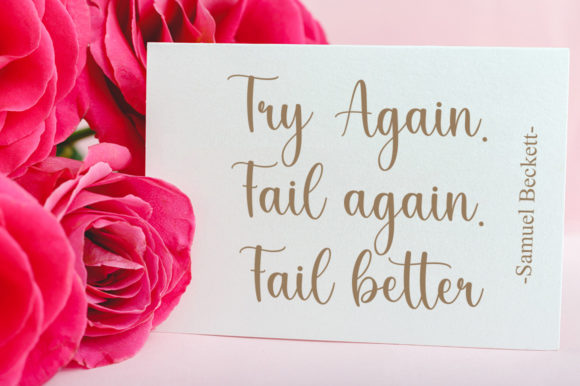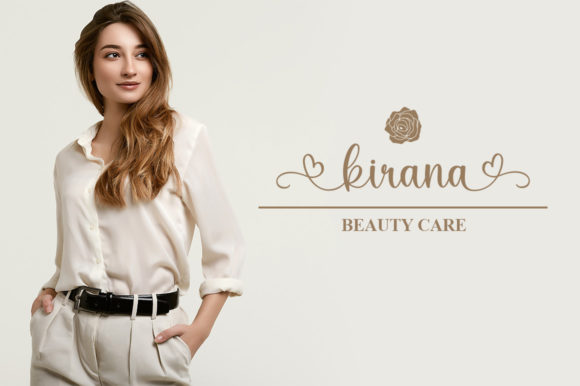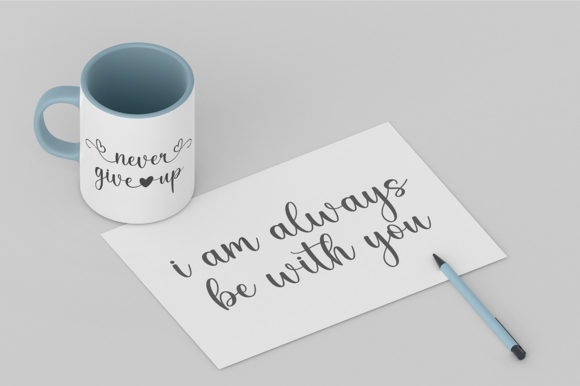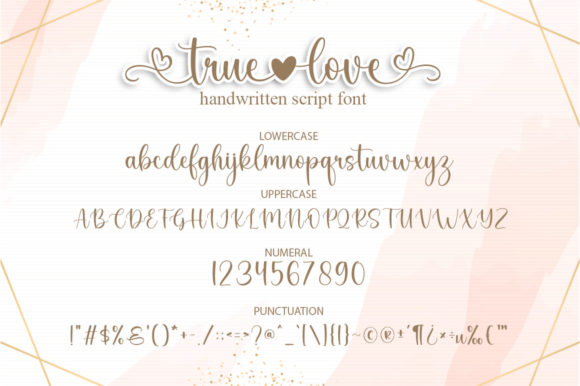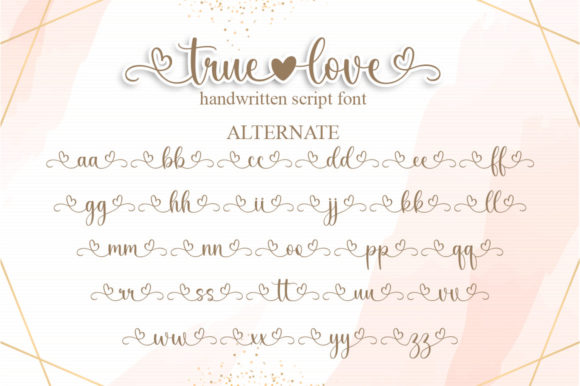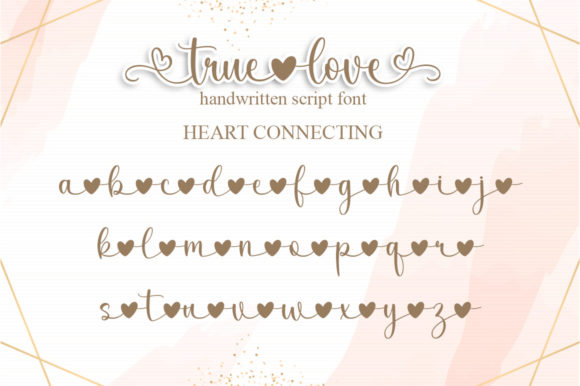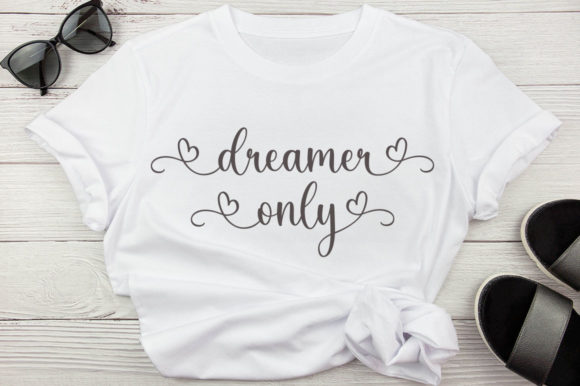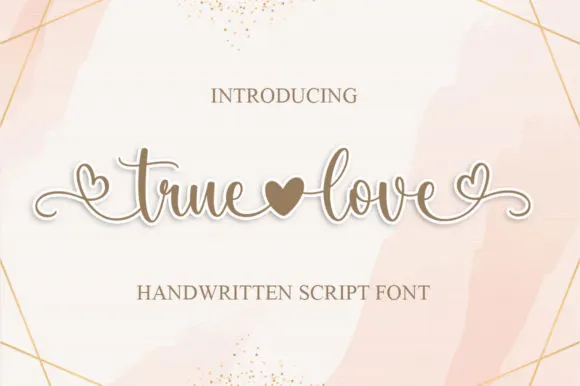
True Love Font
True Love Font : An Elegant Script Font for Versatile Design
True Love is a captivating script font that seamlessly blends charm with sophistication. Its flowing style and well-balanced characters make it an ideal choice for a wide range of design projects, from branding to packaging.
Key Features of True Love Font
• Elegant Flowing Style: The font’s graceful curves and smooth transitions create a luxurious look that catches the eye.
• Well-Balanced Characters: Each letter is carefully crafted to ensure readability and visual harmony across various applications.
• PUA Encoding: Designers can easily access all glyphs and swashes, thus enhancing creative freedom and design possibilities.
• Versatile Applications: Consequently, True Love is suitable for various design needs, from wedding invitations to branding materials.
Perfect for Warm and Inviting Designs
Due to its elegance, True Love is particularly well-suited for projects that require a warm, inviting atmosphere. Moreover, its charming style can evoke emotions and create a personal connection with the audience, making it perfect for designs that need to convey sincerity and affection.
Applications Beyond Invitations
While True Love excels in romantic and personal designs, its versatility extends to various professional applications:
• Branding projects for boutiques or luxury products
• Packaging design for premium goods
• Social media graphics and digital marketing materials
• Editorial layouts for magazines and books
• Product labeling for high-end items
Enhancing Design Freedom
True Love is the ultimate symbol of brand identity- with more than a dozen special glyph options, this typeface leaves you free rein to deploy and use its character set in diverse designs. On the other hand, since it is a font with PUA encoding, that means you can use all special characters and alternates to design creative typographic designs.
Creating Memorable Designs
Including True Love font in your projects will definitely bring some refinement and cozyness to your designs, therefore making them more attractive and memorable for the viewer. Working on a wedding invitation, boutique brand, luxury product or fine art – True Love is a guaranteed way to add sophistacation to your designs. True Love works beautifully as a stand alone typeface, but when paired with other similar script fonts is perfect for mixing and matching between the 3 different weights to add flair in your next project or use True Love Light, Regular or Bold on its own to create layouts, greeting cards, invites, weddings and more. So there you have it: True Love is more than just a font, but also a powerful design instrument to infuse your projects with that romantic and sophisticated twist. This alone makes it an invaluable asset to any designer, as its so versatile and stylish that it can carry a design into various medias and industries with ease.